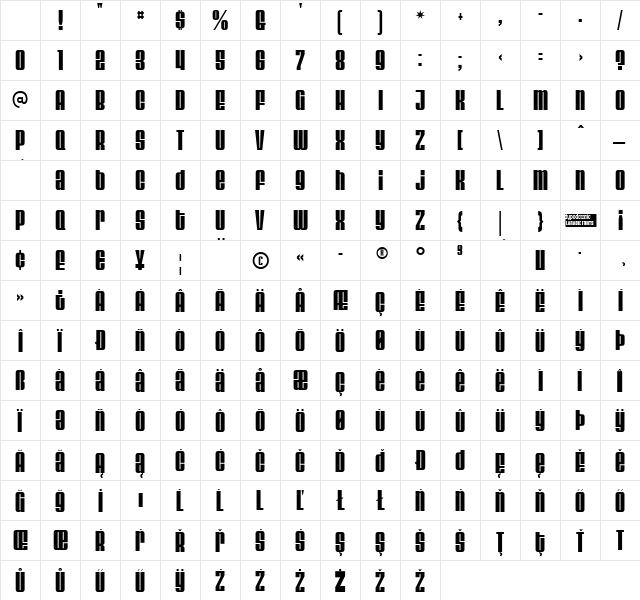
Complete Velvenda Cooler Regular glyph index. Displaying only characters natively supported by Velvenda Cooler Regular font.
Velvenda Cooler is a composed and adaptable typeface that performs quietly and consistently across a wide range of design contexts.